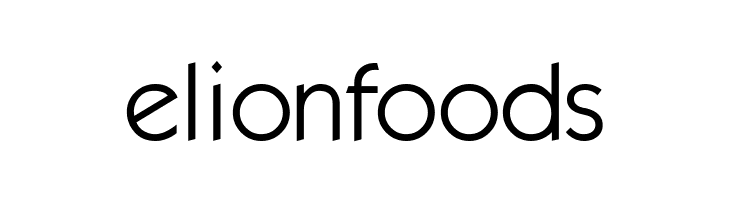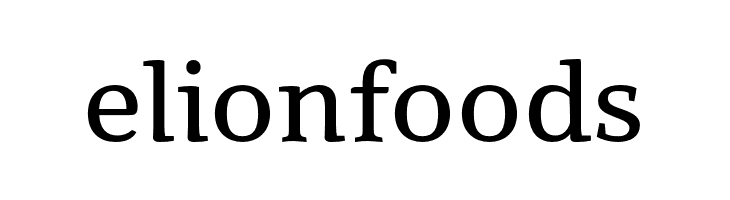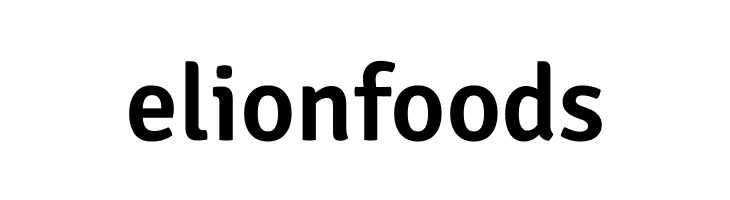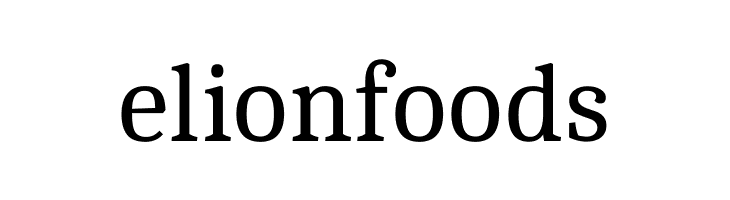
A clean, modern monospaced font with uniform character width and geometric structure.
A modern serif font with balanced proportions and clear readability.
A modern, geometric sans-serif font with balanced proportions.
A modern, geometric font with rounded edges and balanced proportions.
A modern, geometric sans-serif font with balanced proportions and uniform stroke width.
A modern, clean sans-serif font with consistent stroke width and balanced spacing.
A clean, modern sans-serif font with light weight and balanced proportions.
A modern italic font with smooth curves and balanced proportions.
A modern serif font with clean lines and balanced proportions.
A classic serif font with elegant curves and balanced proportions.
A classic serif typeface with a modern touch, featuring elegant serifs and balanced proportions.
A modern, geometric sans-serif font with balanced proportions and clear readability.
A classic serif font with elegant, balanced proportions and clear readability.
A modern sans-serif font with clean lines and balanced proportions.
A bold, modern sans-serif font with geometric shapes and balanced proportions.
A modern sans-serif font with geometric shapes and balanced proportions.
A classic serif font with elegant proportions and clear, distinct characters.
A modern, geometric sans-serif typeface with balanced proportions and minimal contrast.
A bold, classic serif font with moderate contrast and slightly condensed proportions.
A clean, modern typeface with uniform stroke thickness and balanced proportions.
A serif font with a blend of traditional and modern elements, featuring elegant serifs and balanced proportions.
A refined serif font with medium weight and elegant proportions.
A modern sans-serif font with clean lines and balanced proportions.
A modern, bold sans-serif font with geometric shapes and balanced proportions.
A modern, geometric sans-serif font with balanced proportions.
A classic serif font with modern elements and balanced proportions.
A modern serif font with elegant lines and balanced proportions.